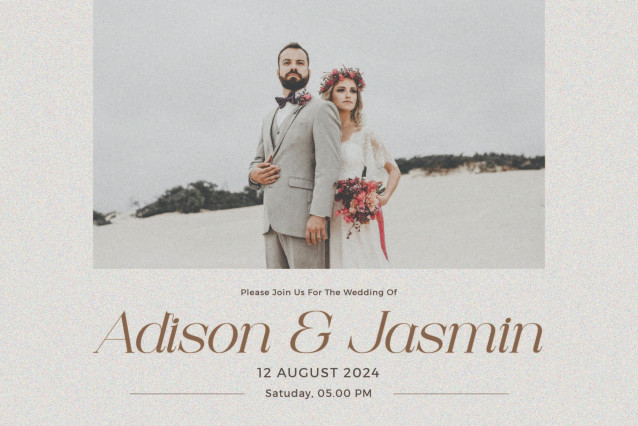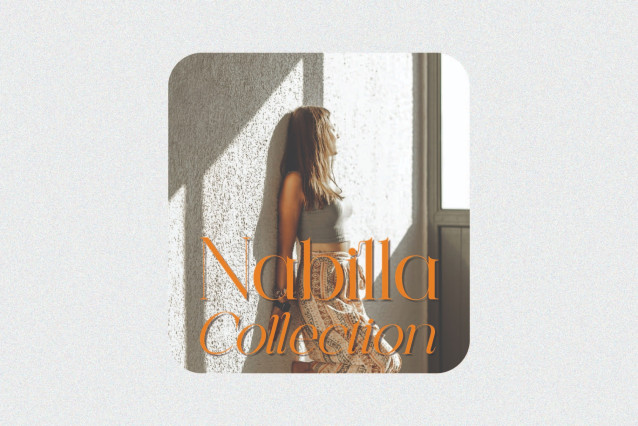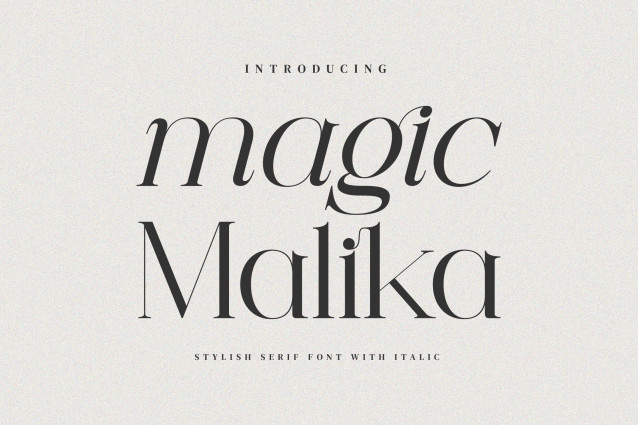
Magic Malika – Stylish Serif Font
Magic Malika Stylish Ligature Typeface, inspired by the famous minimalist logo perfect for the purposes of designing templates, brochures, videos, advertising branding, logos and more.
– Ligatures